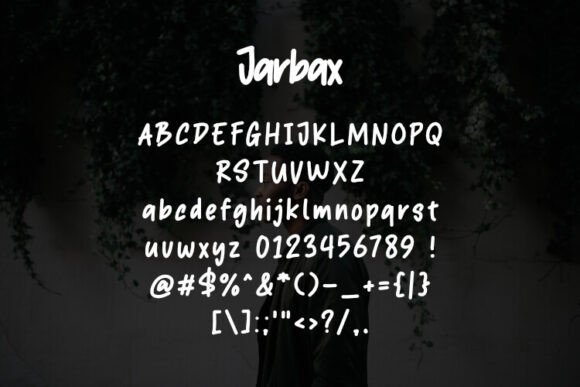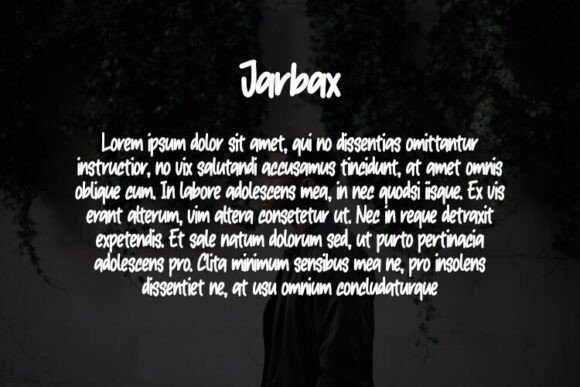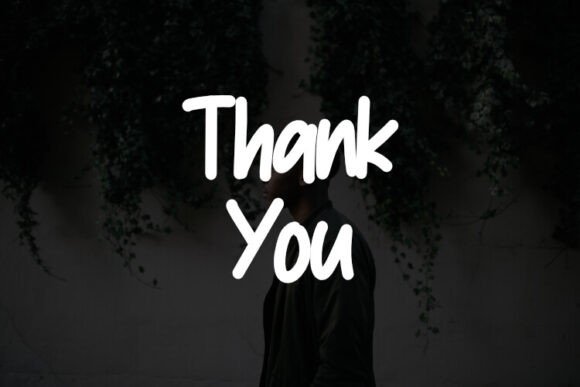
Introduction to Jarbax Font
Have you ever found yourself staring at a blank canvas, searching for that one spark that ignites your creative project? For designers, this moment can be a constant challenge, but it’s also what makes the process so exhilarating. Today, we’re excited to introduce you to “Jarbax Font”, a game-changing design resource that’s about to become your new go-to companion.
This versatile font is specifically tailored for the fashion design world, allowing you to create one-of-a-kind wardrobe pieces that truly stand out from the crowd. With its seamless integration with all design software and concepts, “Jarbax Font” brings an original charm to every project, elevating your designs to new heights.
What sets “Jarbax Font” apart is its high-quality otf file, guaranteeing smooth operation with any platform. Whether you’re working on a free download or a paid project, this font is sure to deliver a distinctive flair that will leave your clients and audience in awe. So why wait? Imbue your designs with the unique charm of “Jarbax Font” today and watch your creative projects shine with a transparent background that truly speaks to your brand’s personality.
Key Features of Jarbax Font
- Unique, hand-drawn style with a transparent background, ideal for adding a personal touch to designs.
- Includes a comprehensive set of characters, including uppercase and lowercase letters, numbers, and punctuation marks.
- Perfect for designers looking for a distinctive, creative font to elevate their designs and add a touch of personality.
Honest Review: Jarbax Font
I recently came across the Jarbax Font, a free download that caught my eye for its unique aesthetic. As a designer, I was eager to see how it would perform in my creative project.
What works well is the font’s high quality and versatility. It comes with a transparent background, making it easy to layer over other design elements. The font itself is modern and sleek, making it perfect for digital designs, such as logos, icons, and web typography.
The Jarbax Font offers a wide range of uses, from headings to body text. The font’s legibility is excellent, even at smaller sizes, making it a great choice for small screens and print materials.
Key Features:
- High-quality, modern design
- Transparent background for easy layering
- Wide range of uses (headings, body text, etc.)
- Excellent legibility
However, there are some limitations to consider. The font may not be suitable for traditional or classic designs, as it has a distinctly modern feel. Additionally, the font’s weight and style options are limited, which may not be ideal for designers who require more customization options.
Overall, I was impressed with the Jarbax Font’s performance in my design project. While it may have some limitations, its high quality and versatility make it a great addition to any design resource library.
Common Use Cases for Jarbax Font
The Jarbax Font is ideal for a variety of creative projects, including logos, business cards, and social media graphics. Its high-quality design and transparent background feature make it a versatile design resource.